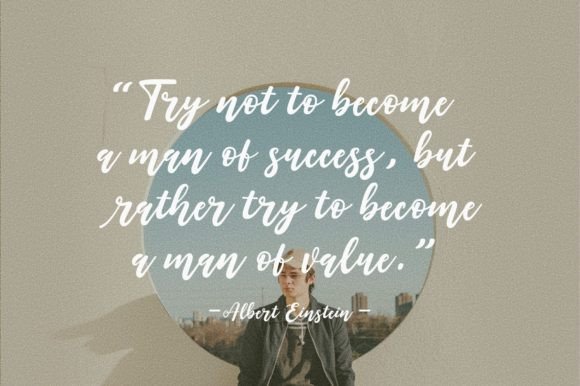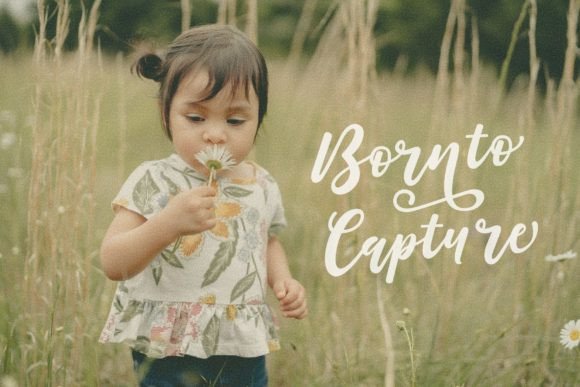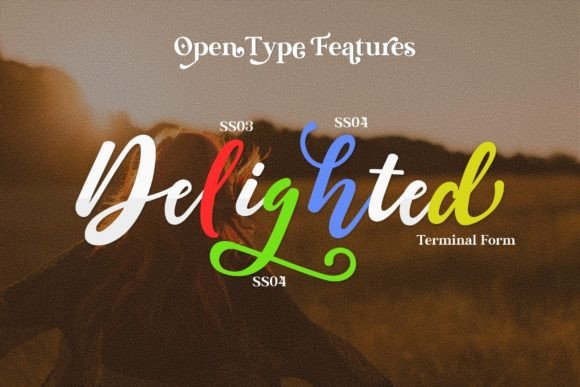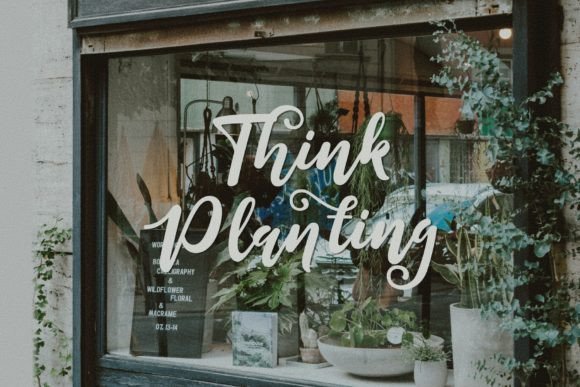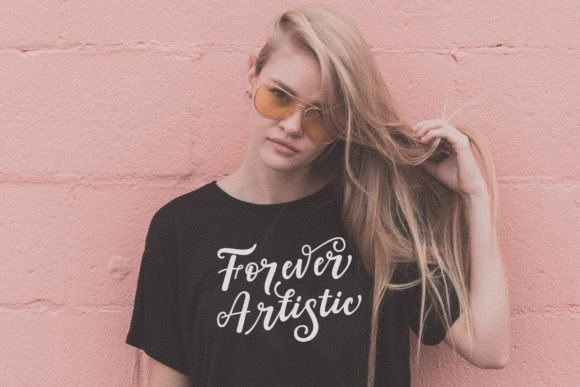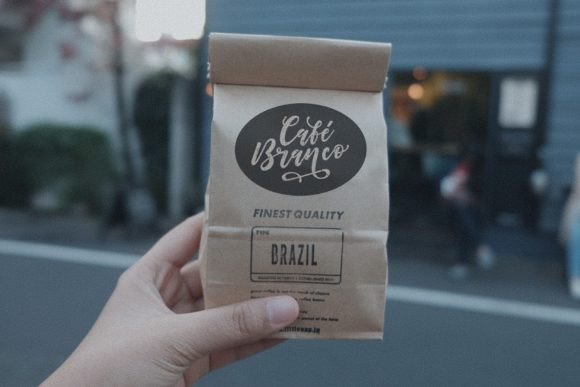
Introducing Delighted Font: Elevate Your Designs with a Bouncy Twist
Are you tired of using the same old fonts for your projects? Look no further! We’re proud to present Delighted, a pretty bouncy font that’s sure to make your designs more enjoyable, beautiful, and stand out from the crowd. As the name suggests, Delighted is a font that will bring a smile to your face and a touch of excitement to your work.
What Makes Delighted Font Special?
Delighted font comes with several alternates, allowing you to switch and create unique variations for your projects. With an alternate, stylistic alternate, and terminal form, you can experiment with different styles to find the perfect fit. This font is perfect for a wide range of design applications, including:
- Logo font: Create a memorable and eye-catching logo with Delighted’s bouncy and playful style.
- Branding: Use Delighted to develop a consistent visual identity for your brand that’s both fun and professional.
- Greeting cards: Add a personal touch to your greeting cards with Delighted’s charming and whimsical feel.
- Cut files for quotes: Create stunning cut files for quotes and phrases with Delighted’s unique and stylish design.
- Silhouette font design: Use Delighted to create intricate and beautiful silhouette designs.
- Monogram font: Design elegant and personalized monograms with Delighted’s elegant and cursive style.
Delighted font is PUA (Private Use Area) encoded, which means you can access all the amazing glyphs and ligatures with ease. This encoding allows you to unlock the full potential of the font and explore its many features, including:
- Glyphs: Access a wide range of glyphs, including alternate characters, ligatures, and ornaments.
- Ligatures: Create beautiful and flowing text with Delighted’s ligatures, which connect letters and words in a unique and stylish way.
Why Choose Delighted Font?
With Delighted font, you can:
- Elevate your designs: Add a touch of excitement and playfulness to your projects with Delighted’s bouncy style.
- Save time: With PUA encoding, you can access all the font’s features quickly and easily, saving you time and effort.
- Increase versatility: Use Delighted for a wide range of design applications, from logos and branding to greeting cards and cut files.
Tips for Using Delighted Font
To get the most out of Delighted font, try the following tips:
- Experiment with alternates: Switch between different alternates to find the perfect style for your project.
- Mix and match: Combine Delighted with other fonts to create a unique and eye-catching design.
- Play with size and color: Use Delighted in different sizes and colors to add visual interest and hierarchy to your design.
Delighted font is a versatile and fun font that’s perfect for designers and crafters looking to add a touch of excitement to their projects. With its bouncy style, multiple alternates, and PUA encoding, Delighted is sure to become a go-to font in your design arsenal. So why wait? Download Delighted font today and start creating stunning designs that will delight and inspire your audience!